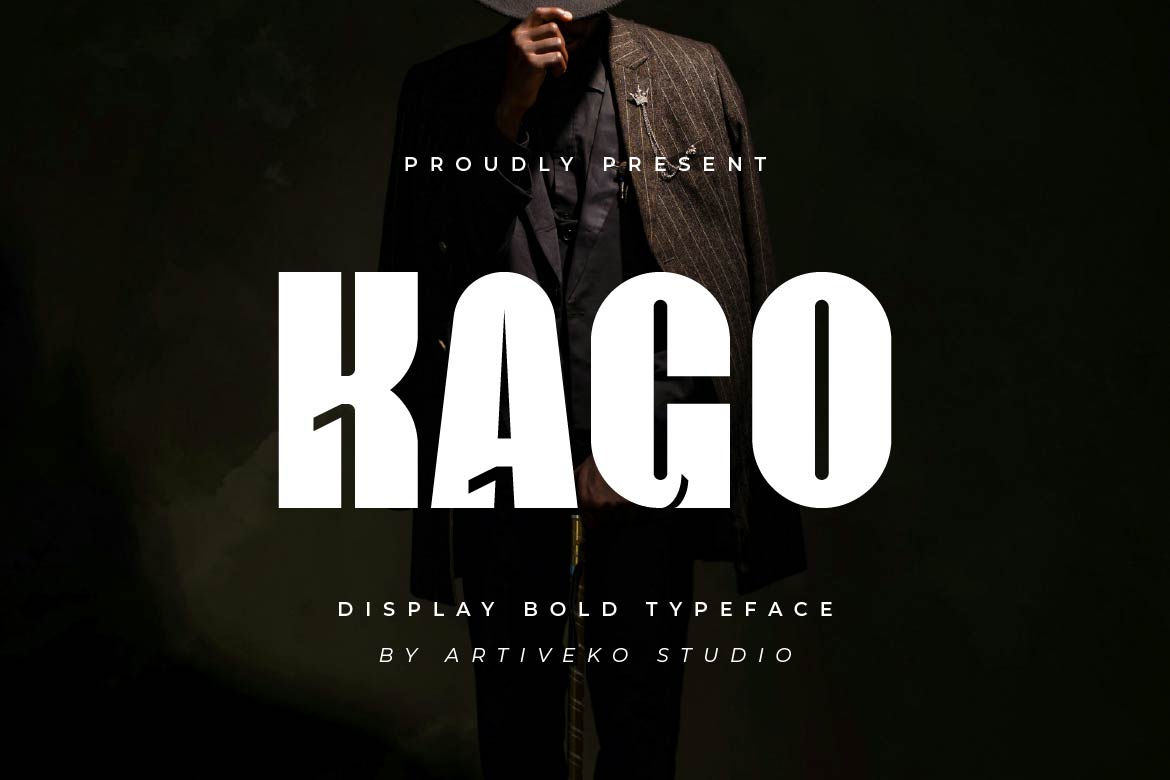
- Kago – Powerful Display Font for Logos
Kago is a bold display sans serif typeface designed to create strong visual impact with a clean modern aesthetic. Featuring solid letterforms, balanced proportions, and confident structure, Kago delivers powerful typography that instantly captures attention.
Perfect for branding, logos, posters, packaging, advertising, social media graphics, and modern campaign visuals, Kago combines bold strength with excellent readability. Its display-focused design makes it ideal for headlines and large compositions that require clarity and presence.
Whether used for modern branding, promotional materials, or standout visual identity systems, Kago provides a professional and commanding typographic voice.
Kago is not just a font — it’s bold, modern, and built to stand out.